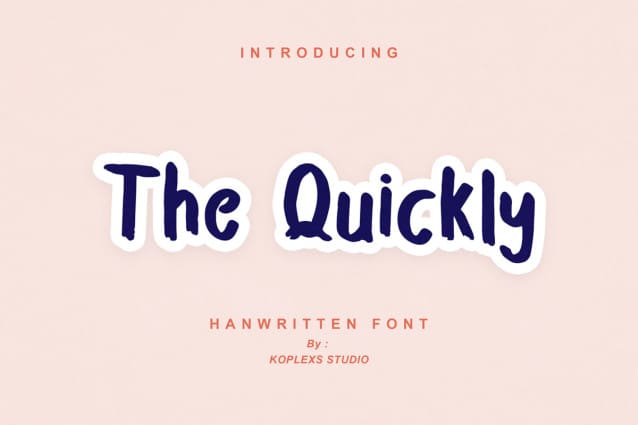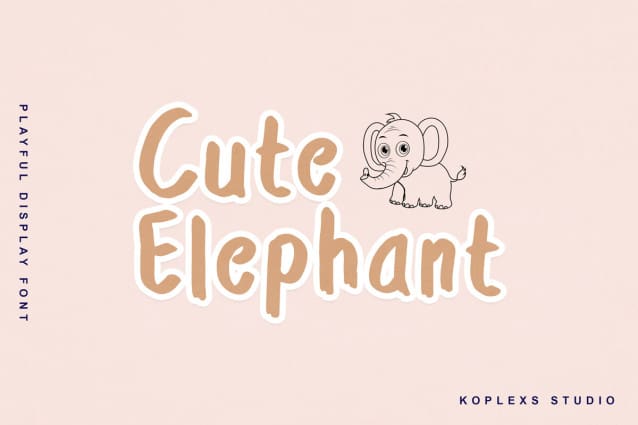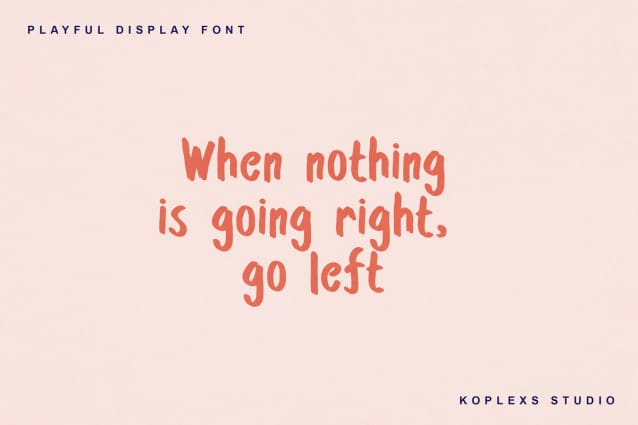
The Quickly Font
The Quickly Font is a playful, comfortable, and practical handwriting font. Add this neatly painted font into your favorite works and notice how easily they stand out.
The Quick – your favorite font to add a bit of playful charm to your digital creations!
With its quirky handwritten style, this font brings personality and vibrancy to any project. Whether you are Design posters, create social media graphics or create a unique logo, “The Quick” is all about fun.
and full of energy, instantly attractive.
Unleash your creativity as you seamlessly incorporate this font into a variety of applications different. From branding to packaging, invitations to merchandise, “The Quick” adapts with ease, guaranteed
Make sure your design stands out with a distinctive playful touch.